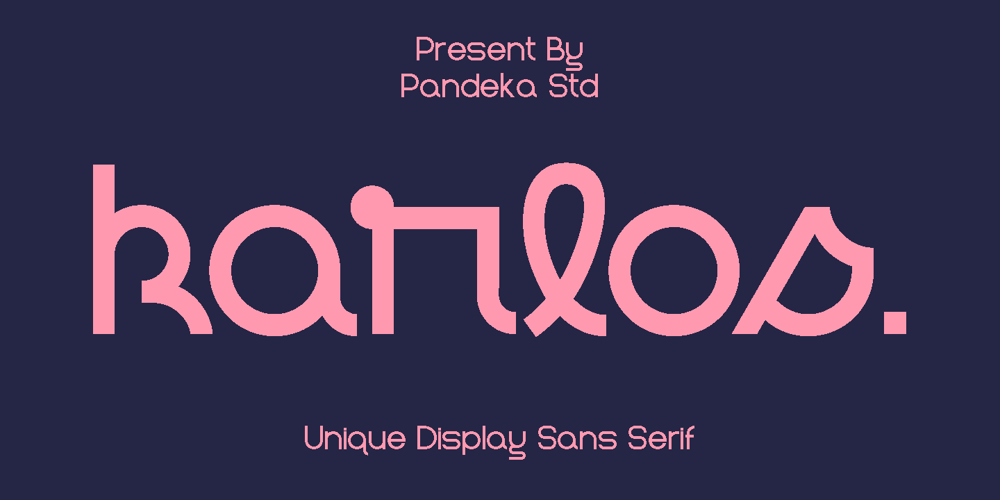
Karlos Font Family was designed by Sagara Nararya and published by Pandeka Studio. Karlos contains 5 styles and family package options. Karlos is a blend of a geometric sans serif and a modern script hybrid font, available in five family variations (Light, Regular, Medium, Semi Bold, Bold)The Karlos design showcases a distinctive array of characters inspired by script letterforms (such as the f, k, l, r, s), seamlessly integrated into the overall geometric framework of the typeface. For a more classic sans-serif approach, the Karlos Alt design offers a slightly more restrained option.The five family options harmonize perfectly, catering to both display and text needs. Karlos imparts a unique, creative, and expressive touch, ideal for branding, advertising, packaging, headlines, magazines, websites, logos, and more.Features: Karlos Main Files Variable Font (Light, Regular, Medium, Semi Bold, Bold) Instructions (Access special characters in all apps, even in Cricut Design) Accessible in Adobe Illustrator, Adobe Photoshop, Microsoft Word even Canva! PUA Encoded Characters. Fully accessible without additional design software Language Support: Danish, English, Estonian, Filipino, Finnish, French, Friulian, Galician, German, Gusii, Indonesian, Irish, Italian, Luxembourgish, Norwegian Bokmål, Norwegian Nynorsk, Nyankole, Oromo, Portuguese, Romansh, Rombo, Spanish, Swedish, Swiss-German, Uzbek (Latin)Feel free to follow, like and share. Thanks so much for checking out my shop!Have a great day!Pandeka Studio